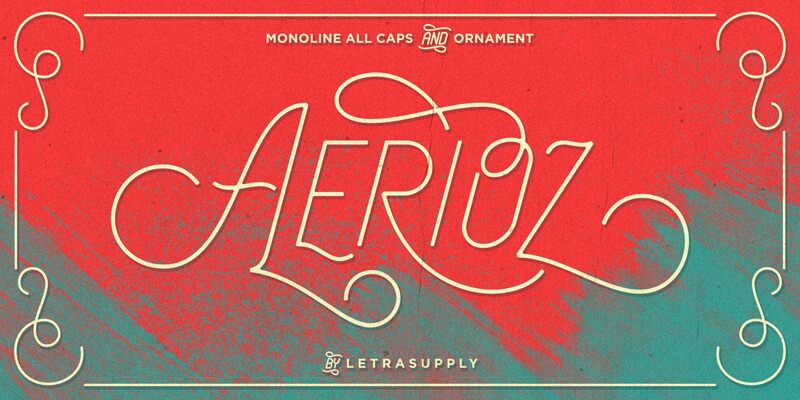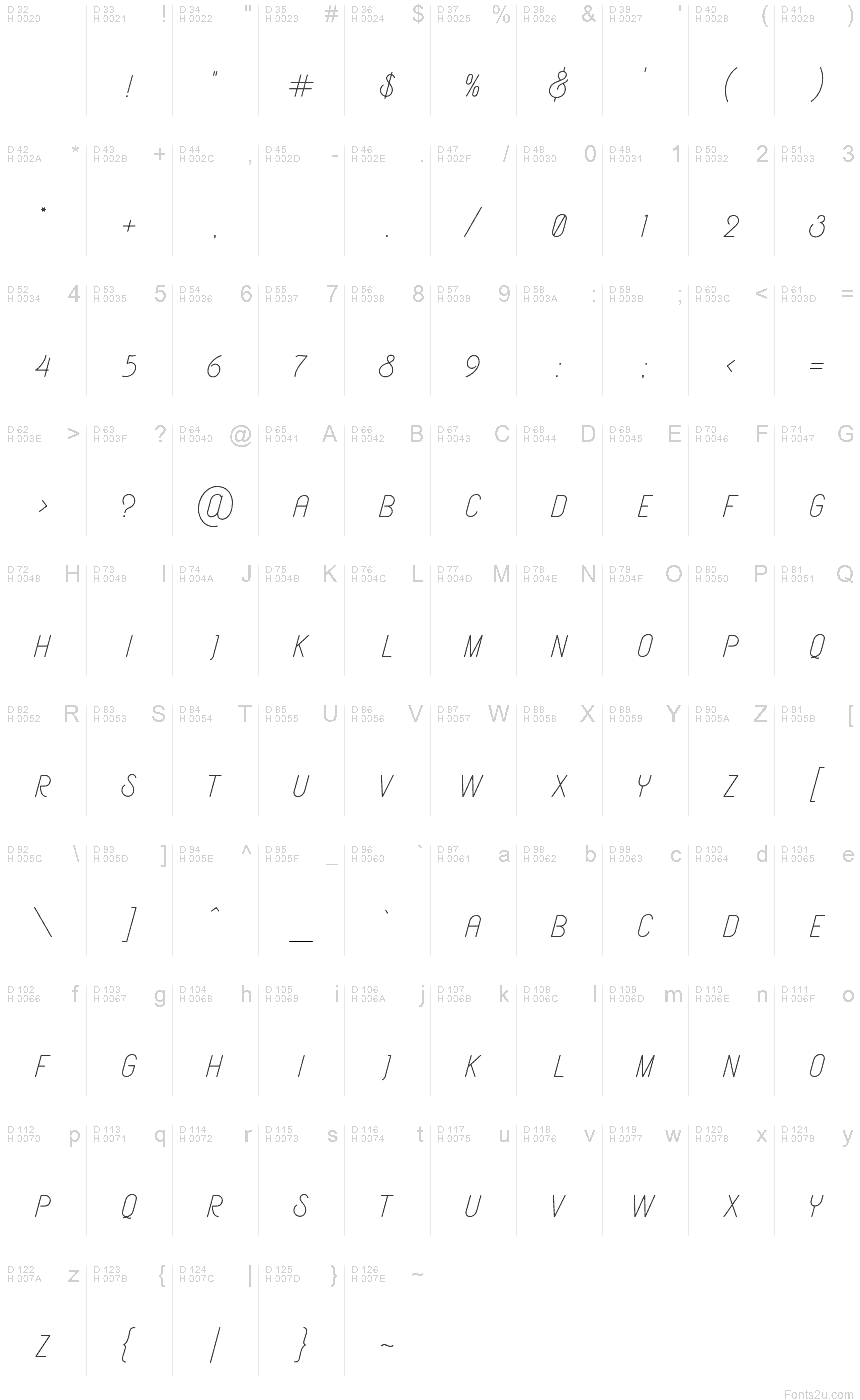
AeriozDemo
Aerioz is a monoline all caps font, comes with over 600 characters including 324 alternate letters. Smooth with rounded lines, simple, elegant, and perfect in any layout project such a headline magazines, custom name, neon sign and more typography work. Aerioz is packed with ornaments and OpenType alternates, you can combine the regular font with the ornament to make it more perfect.